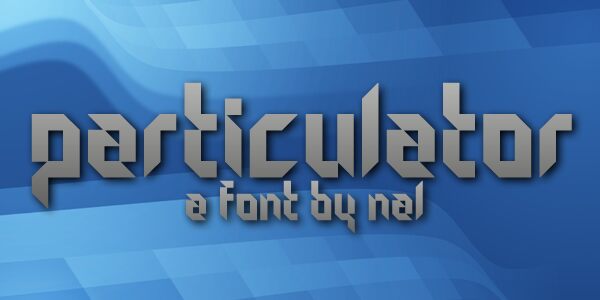
Particulator by NAL of FSI FontShop International GmbH is a free futuristic display font with a severe, engineered profile. Broad black strokes meet sharp diagonal cuts, turning many letters into interlocking geometric shapes. The effect is compact and forceful.
Its science-fiction styling suits game interfaces and electronic music posters, especially when a project needs lettering with the authority of machinery. Fashion merchandise and event graphics can draw on the same hard-edged geometry for an industrial, club-oriented look. The repeated wedges and sliced corners connect these uses to cybernetic imagery and dystopian screen design.
Particulator
Particulator Regular
NAL